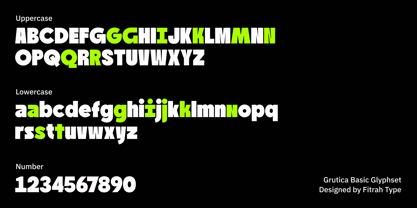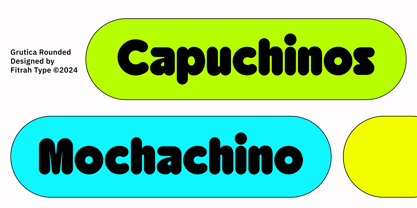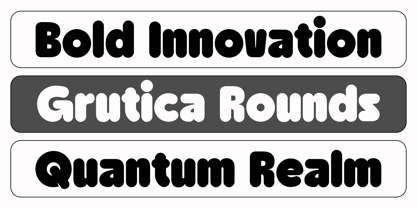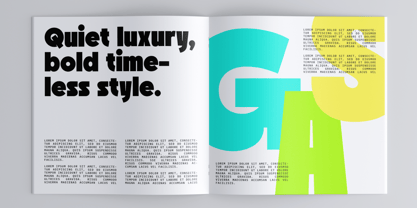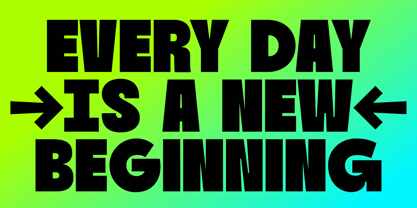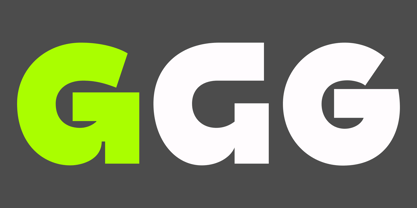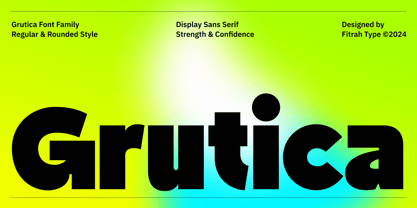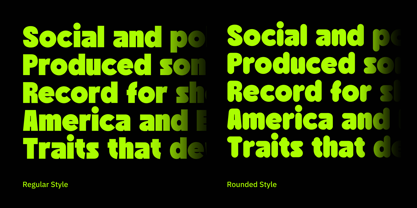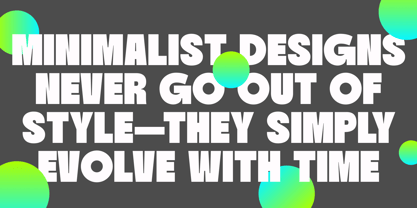
Grutica
Die Schriftfamilie Grutica wurde von Moch Fitrah Hidayat entworfen und von Fitrah Type veröffentlicht. Grutica enthält 2 Stile und Familienpaketoptionen. Mehr über diese Familie
Introducing Grutica, a bold and trendy sans-serif font designed to make your designs stand out. With its strong, clean lines and modern aesthetic, Grutica is perfect for projects that need a confident, stylish, and eye-catching typeface. Grutica’s thick strokes and sharp edges create a powerful visual presence, making it ideal for headlines, logos, branding, and advertisements. Fully compatible with popular design tools like Adobe Illustrator, Photoshop, and other creative software.